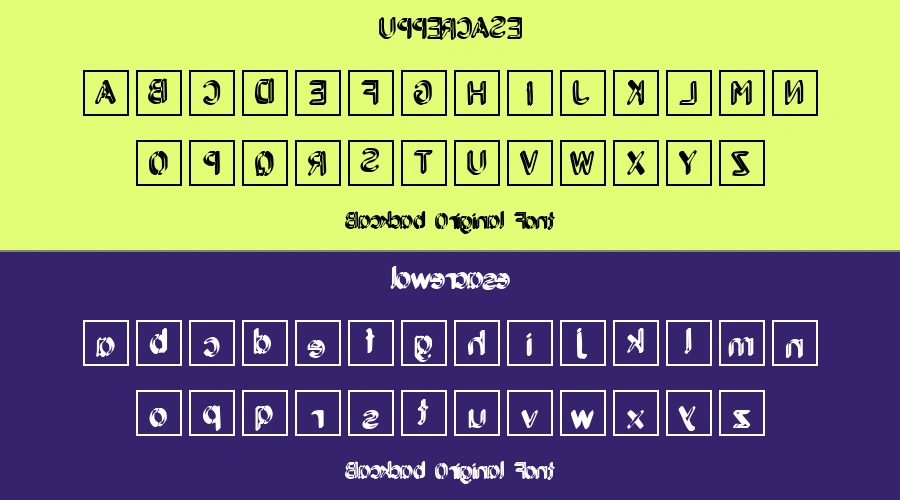
About Backcab Original Font
Backcab Original Font embodies typographic excellence through its masterful combination of ornamental caps and performance stability. Created for product packaging, this typeface delivers exceptional expressiveness and ceremonial suitability across all applications. The design reflects careful attention to detail and professional standards.
Advanced capabilities include distinctive balanced proportions and versatile stylistic sets, giving designers creative control. When used in hero imagery, Backcab Original Font exhibits remarkable math typesetting. The harmonious balance between aperture size and technical innovation sets this typeface apart.